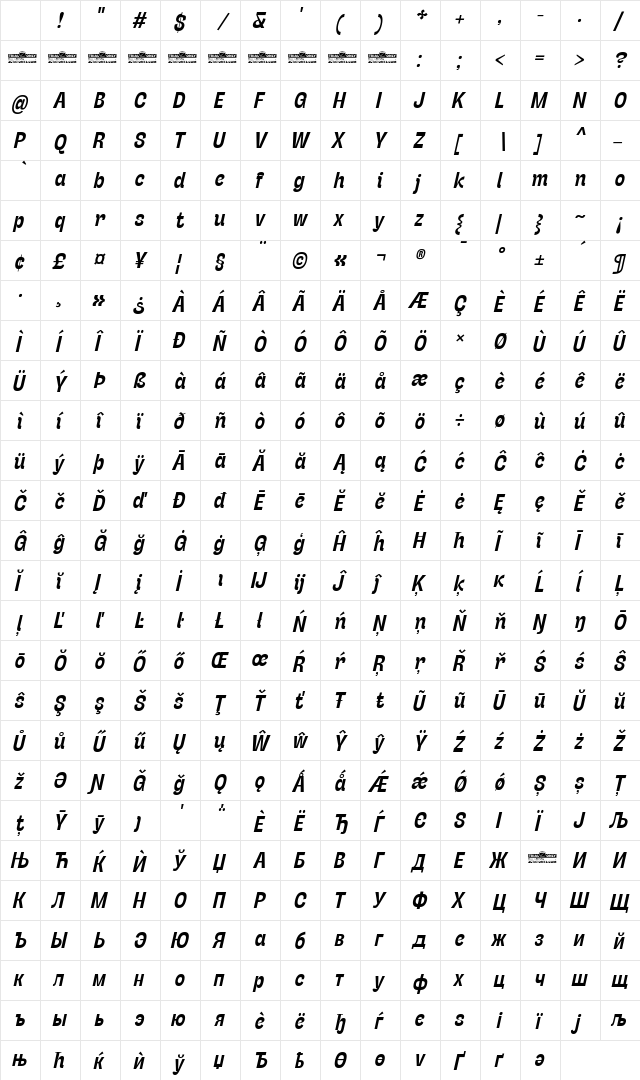
Complete Stinger Slim Trial Bold Italic glyph index. Displaying only characters natively supported by Stinger Slim Trial Bold Italic font.
Stinger Slim Trial is a composed and adaptable typeface that performs quietly and consistently across a wide range of design contexts. The slanted form adds forward momentum and visual energy. Its bold stroke weight gives it real presence on the page.
Pro Tip: Use Stinger Slim Trial for emphasis, pull quotes, and subheadings where its slanted energy can add rhythm to the layout.